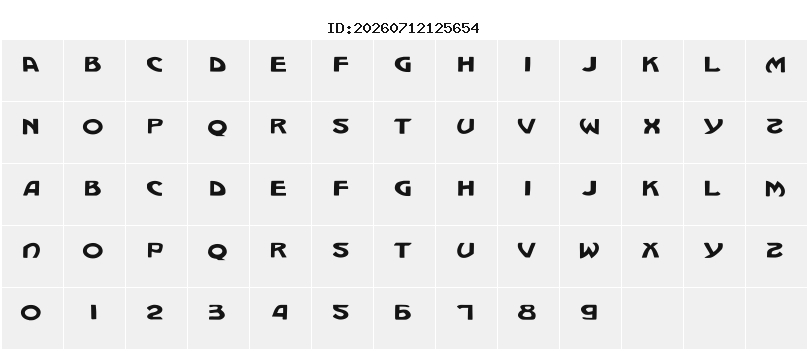
Machiavelli Preview
• Font Name: Machiavelli
About Machiavelli.ttf
Machiavelli.ttf is a modern, elegant sans-serif font designed for ultimate readability and visual harmony. Perfect for branding, headlines, web design, and print materials.